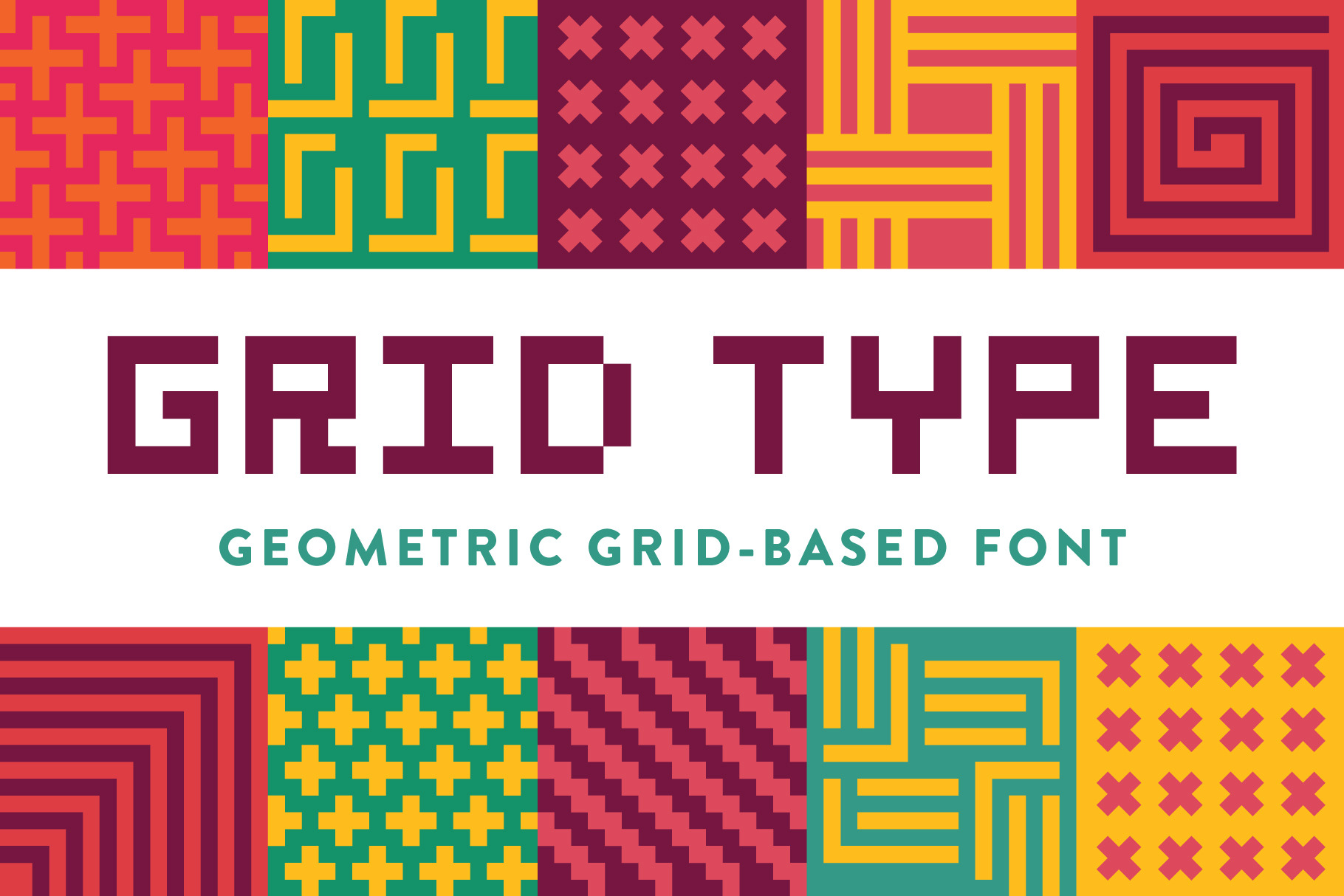
Grid Type - Geometric Font
GET YOUR GRID ON WITH GRID TYPE
I present to you my next geometric font, designed on a perfect grid for tight, clean design. Included are 18 font files: six styles and three weights per style.